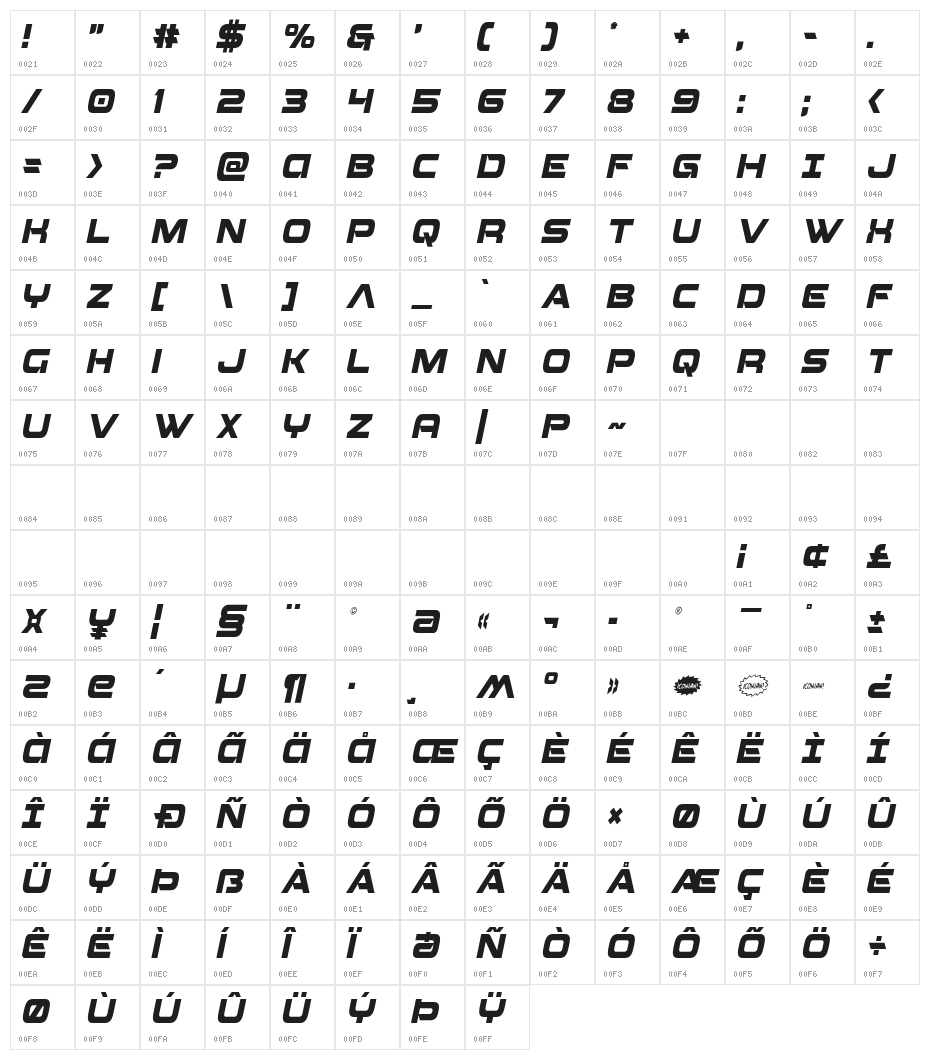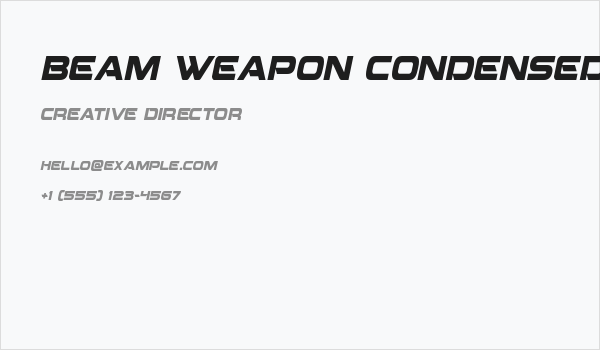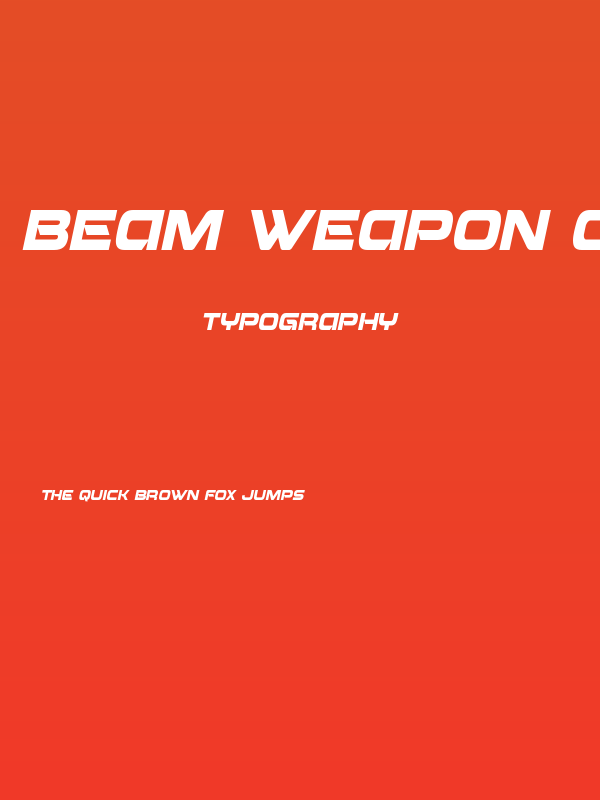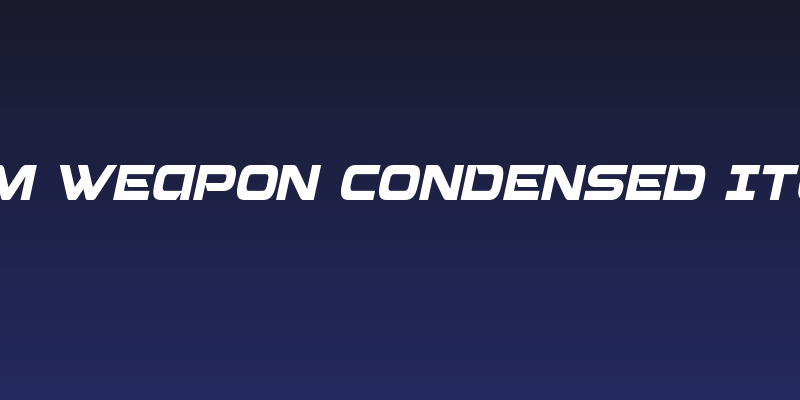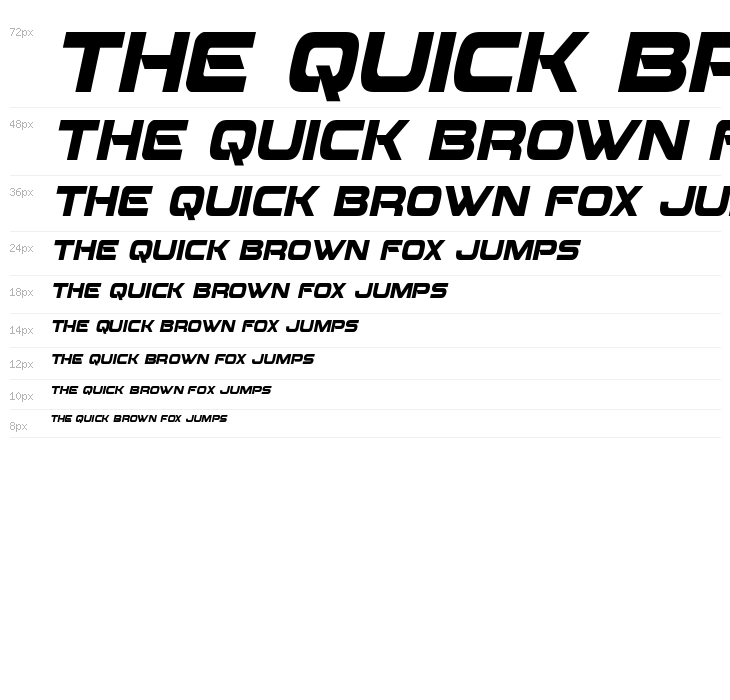
Beam Weapon Condensed Italic Font
Beam Weapon Condensed Italic Description
This font features a futuristic and dynamic design with a strong emphasis on angular lines and sharp edges. The characters are condensed and italicized, giving a sense of speed and motion. The uppercase and lowercase letters maintain a consistent style, with a slight slant that enhances the italic effect. The numbers and special characters are designed to match the overall aesthetic, ensuring uniformity across all glyphs. The bold strokes and geometric shapes make it highly legible while maintaining a unique, modern appearance.
Proposed ProjectsIdeal for sci-fi themed projects, video game interfaces, tech branding, and modern poster designs.